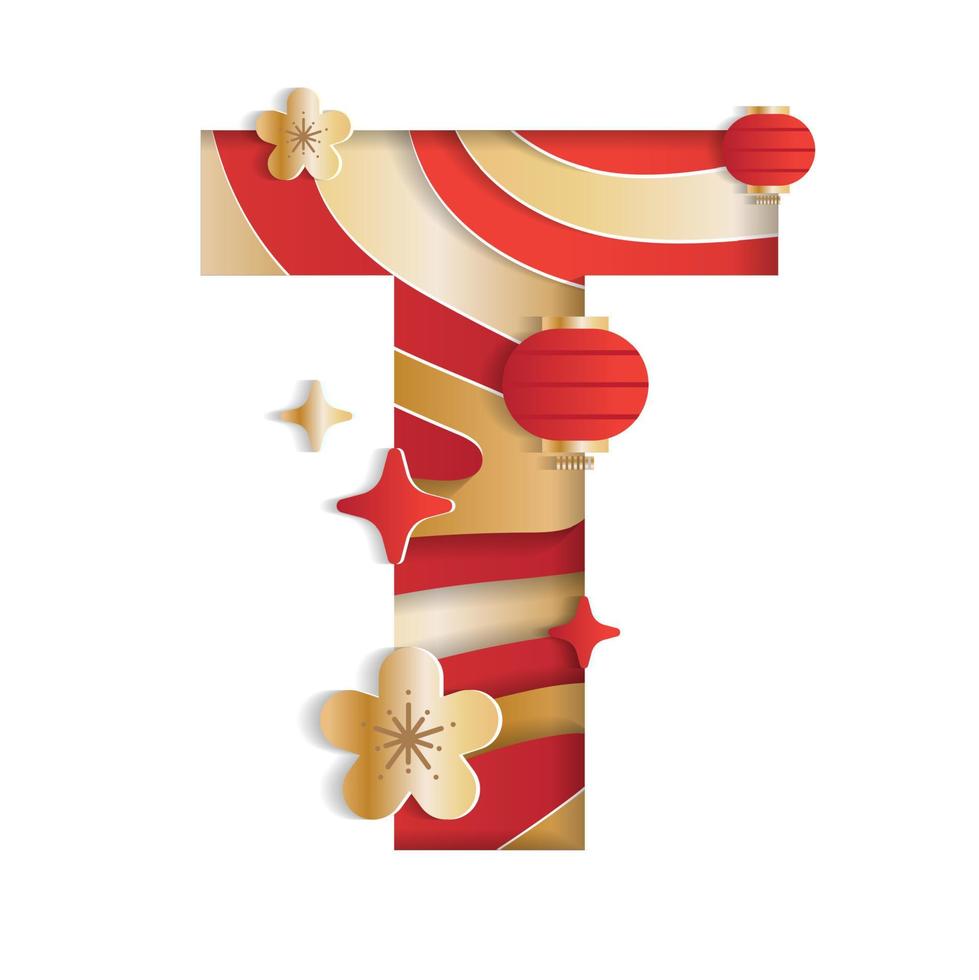
Letter T Alphabet Font Chinese New Year Concept Character Font Letter Abstract Paper Flower Lantern Lunar Festival Element Sparkle Gradient Red Gold 3D Paper Layer Cutout Card Vector Illustration